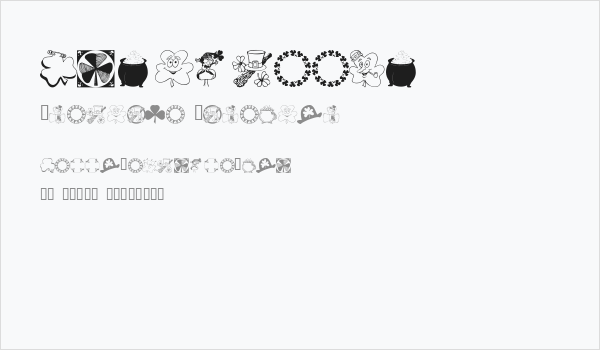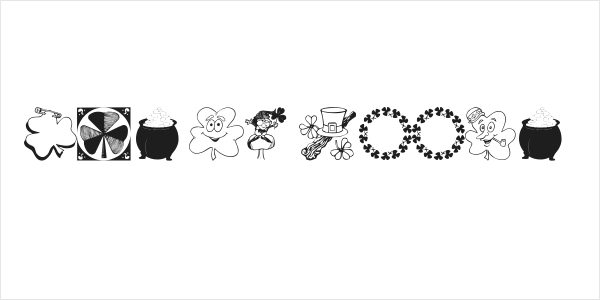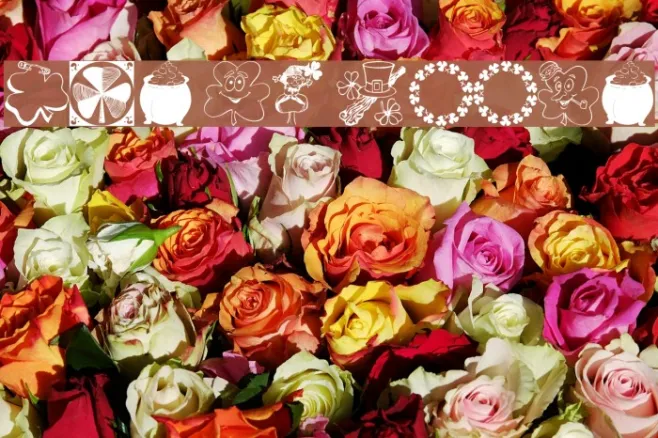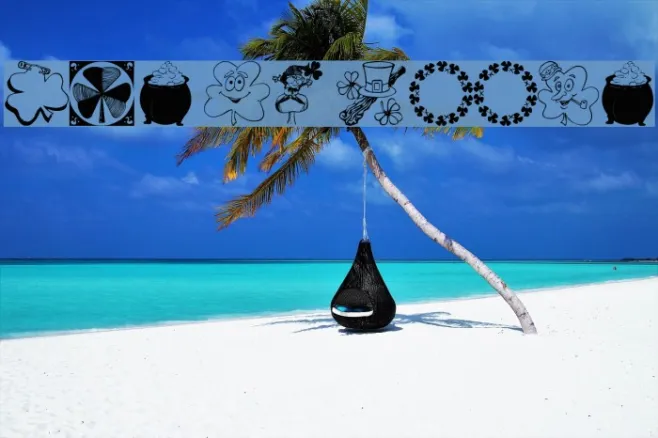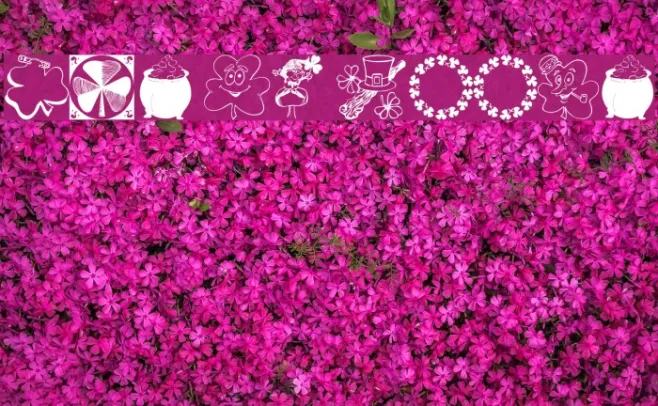
wmstpaddys Font
wmstpaddys Description
A decorative dingbat font featuring various St. Patrick's Day-themed illustrations such as shamrocks, leprechaun hats, pots of gold, clovers, and festive motifs. Each character is represented by a unique holiday-related icon rather than traditional alphanumeric glyphs.
| Overall Style | Decorative, Festive, Thematic |
| Use Case | Decorative elements, Icons, Themed graphics |
| Proposed Projects | Holiday cards, party invitations, event flyers, festive banners, themed crafts, digital scrapbooking. |